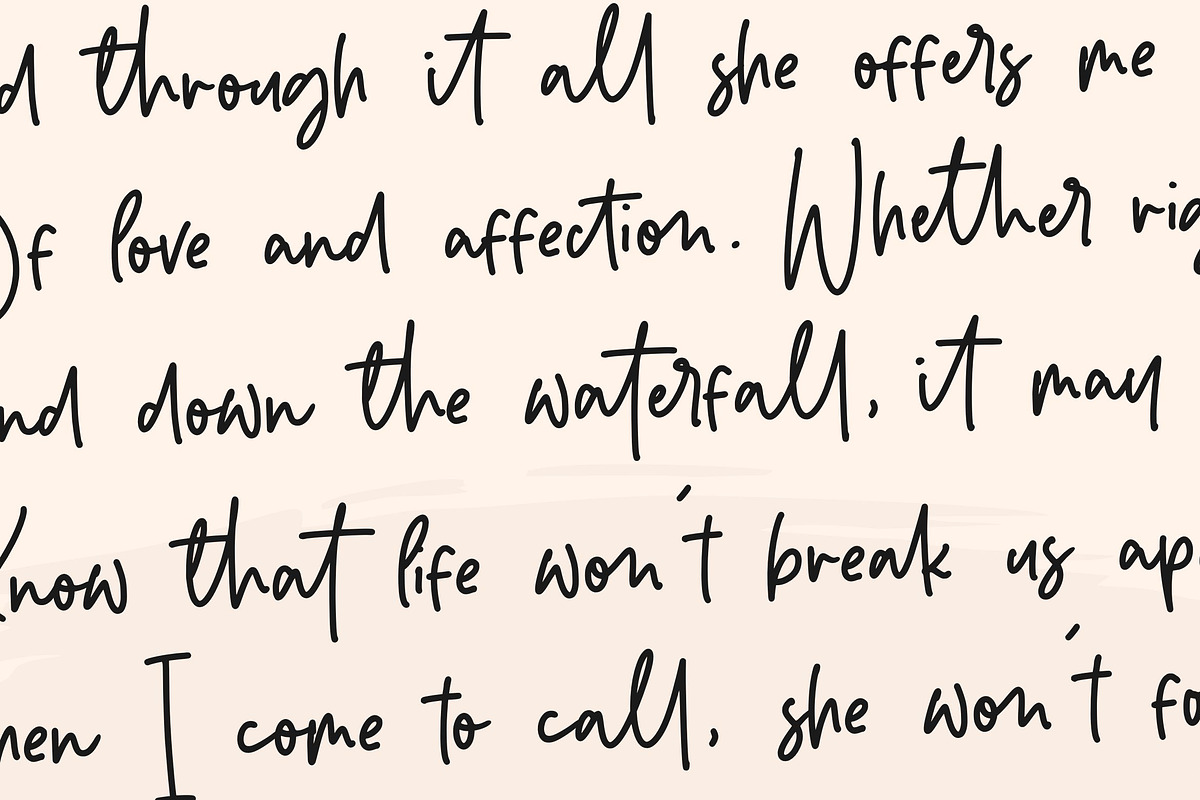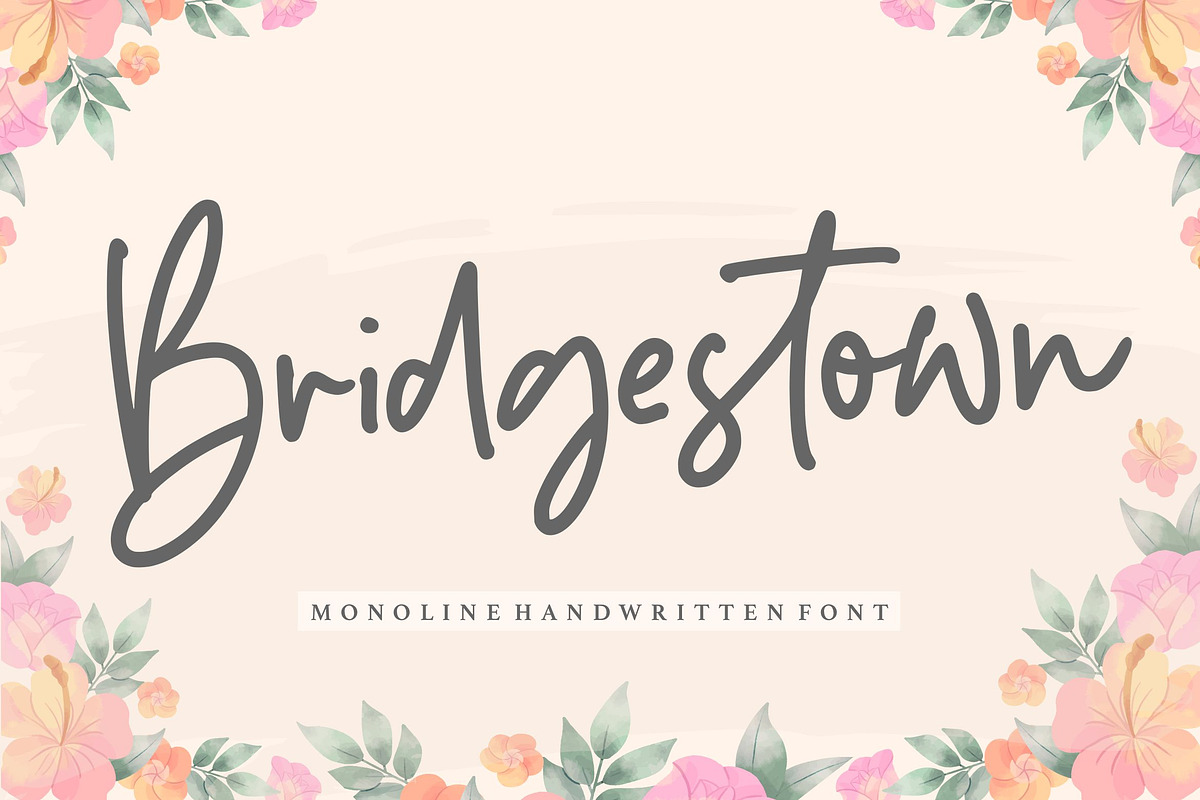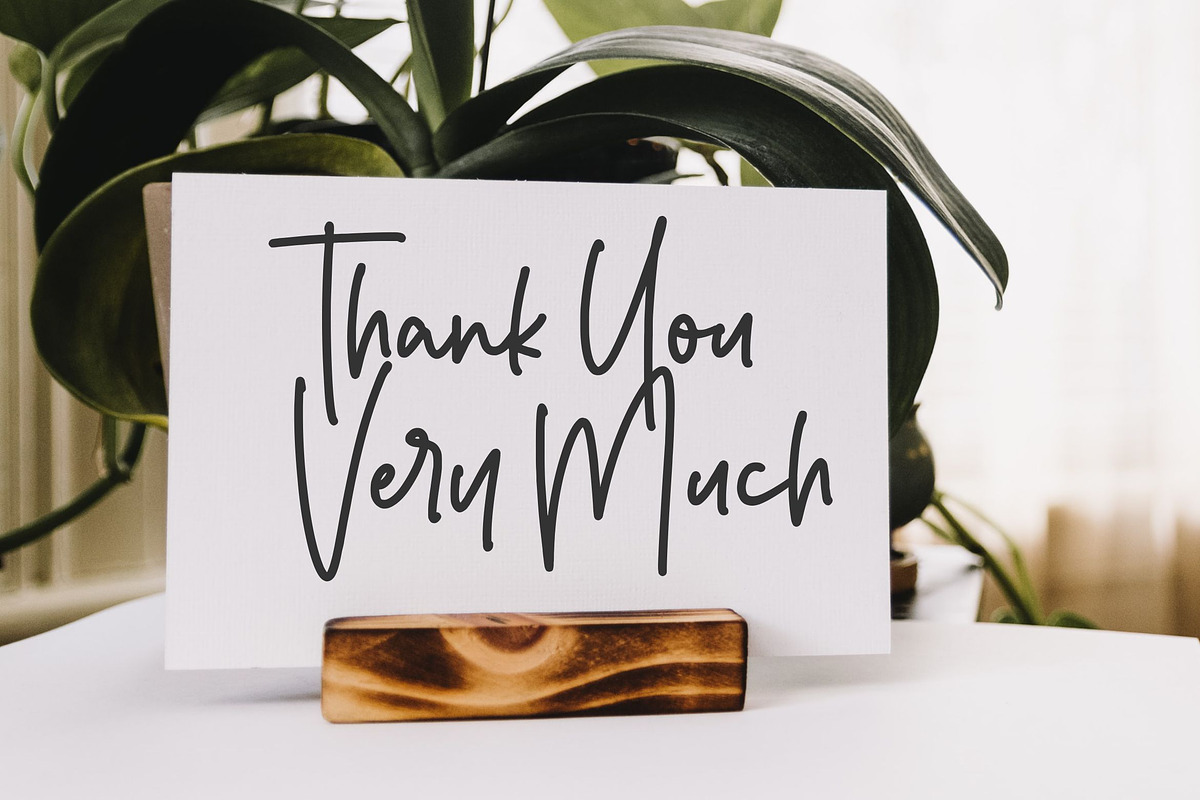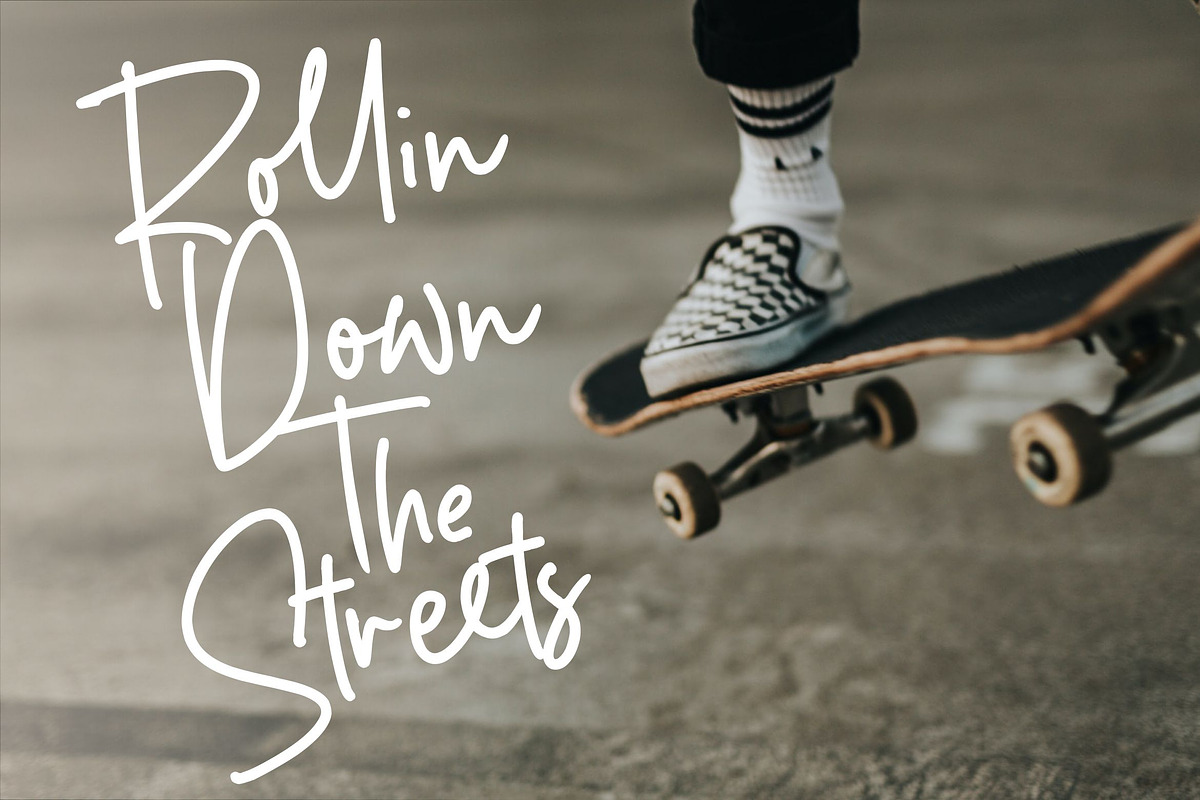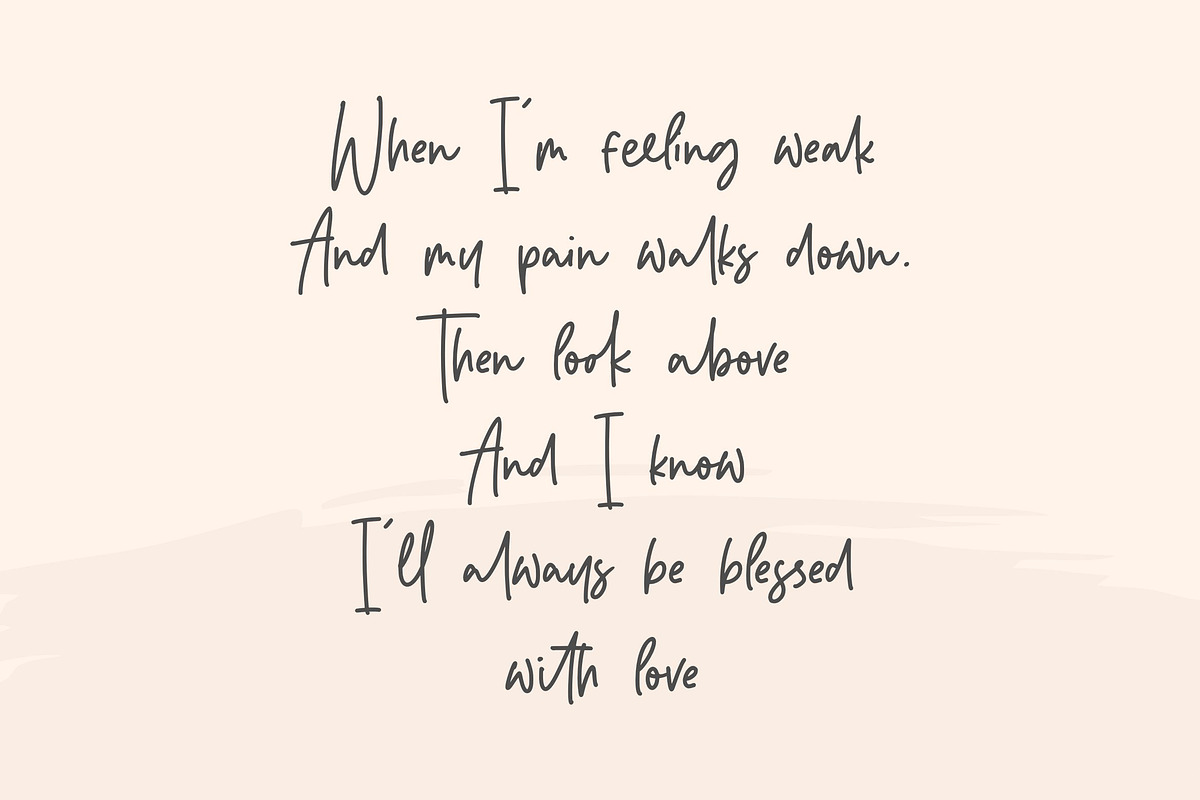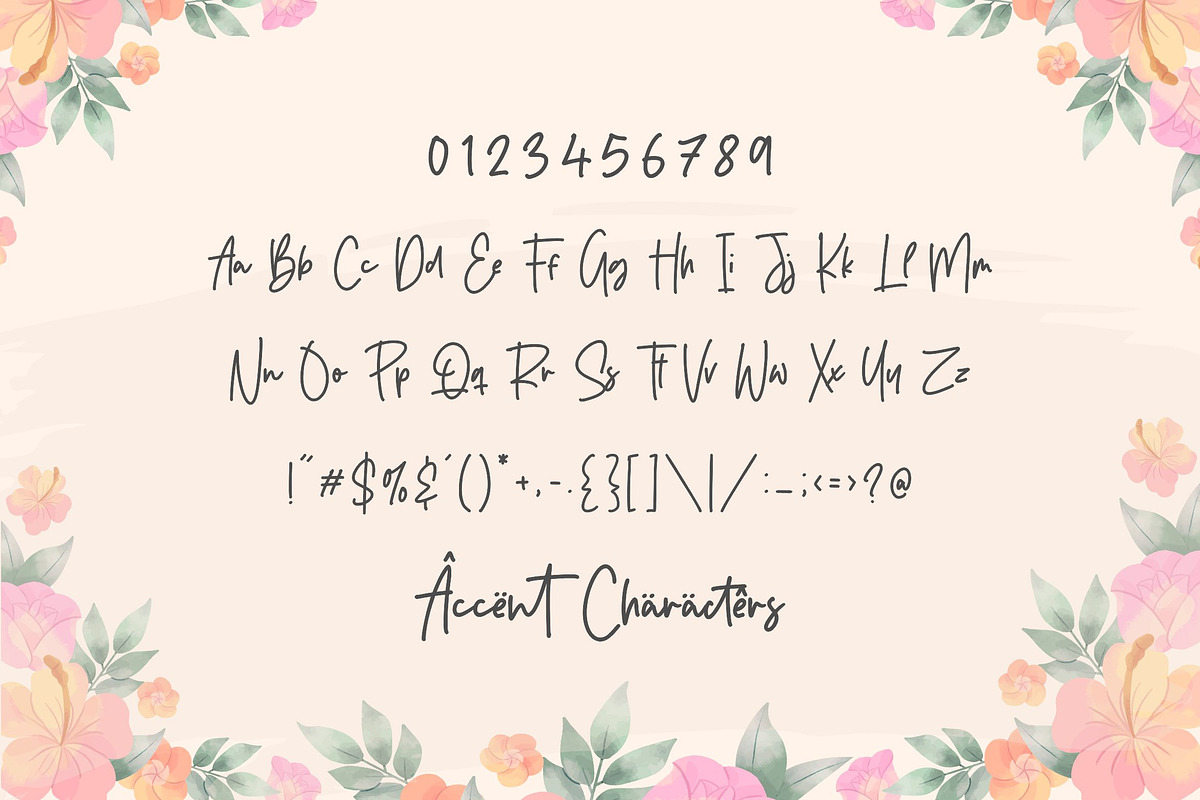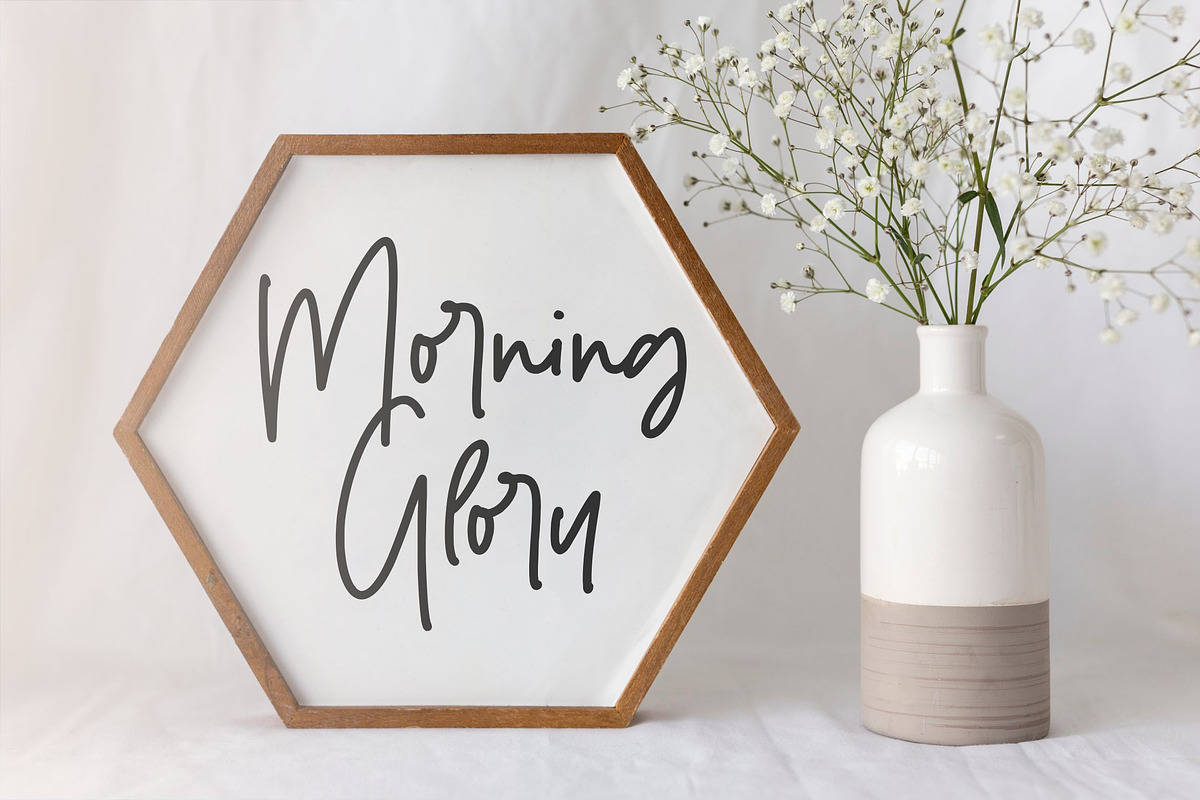
Bridgestown - Monoline Font
Proudly Present, Bridgestown Font
Bridgestown is a cute and casual handwritten font with an incredibly friendly feel. It will elevate a wide range of design projects to the highest level, be it branding, headings, wedding designs, invitations, signatures, logos, labels, and much more!